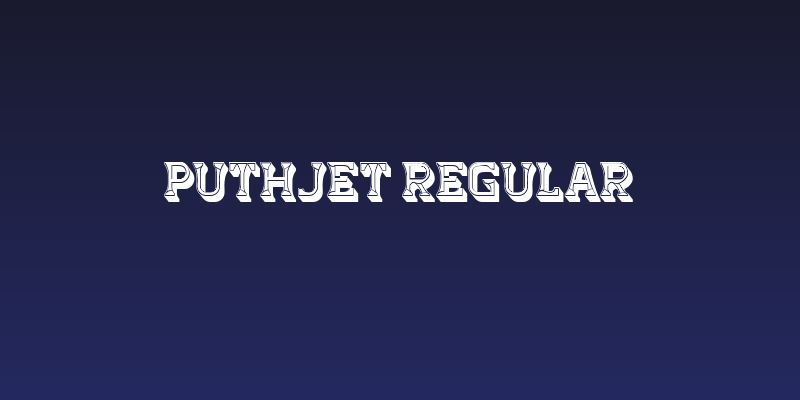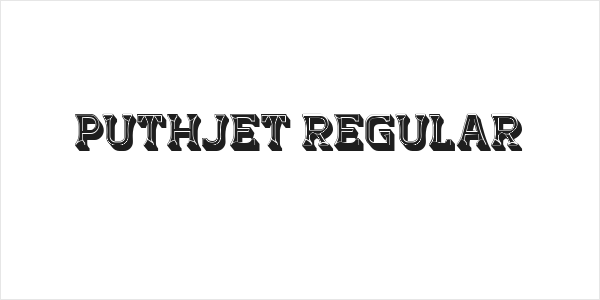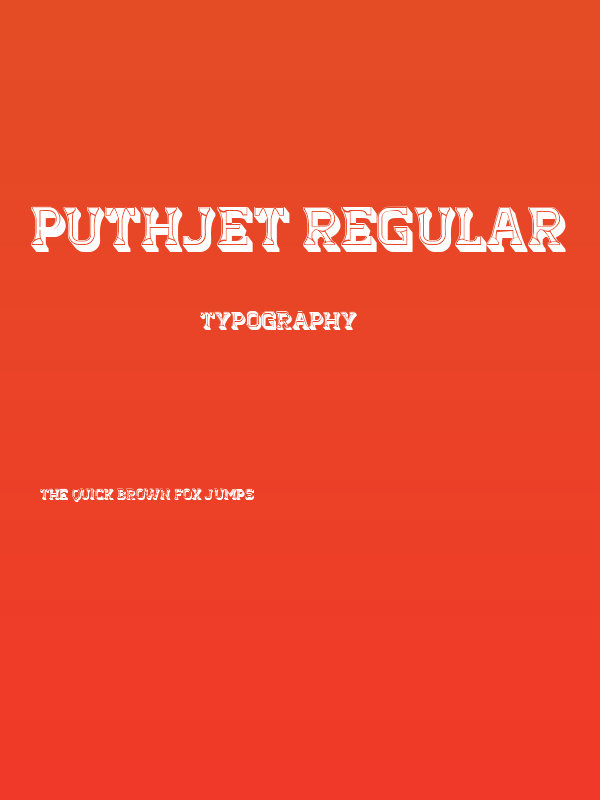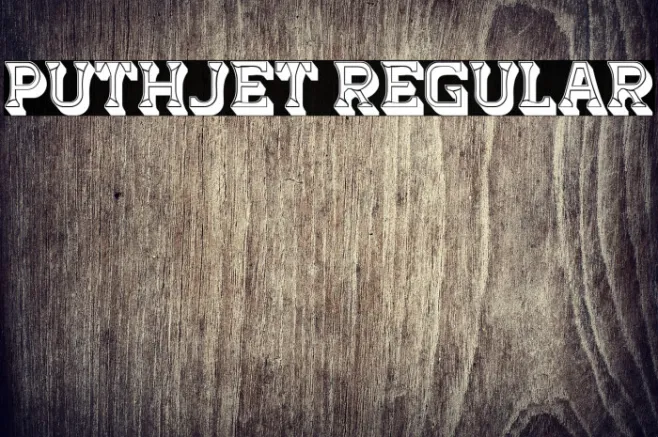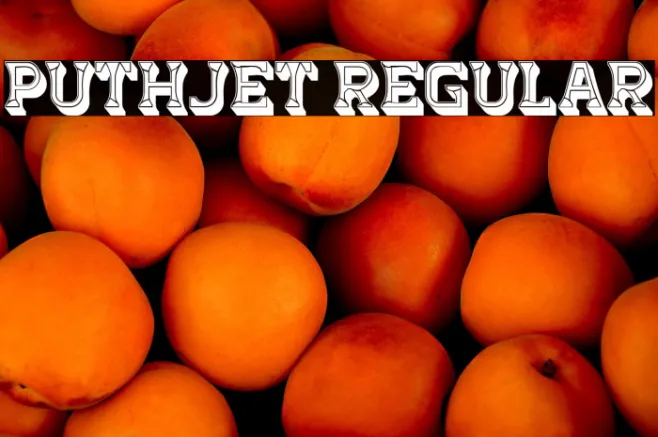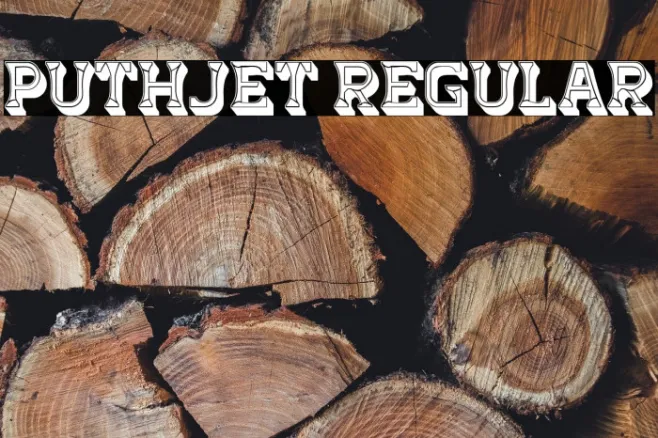
Puthjet Regular Font
Puthjet Regular Description
This font features a bold, decorative style with a three-dimensional effect that gives it a striking appearance. Each character is outlined with a thick black shadow, creating a sense of depth and dimension. The letters are uppercase, with sharp angles and geometric shapes that contribute to its bold and impactful look. The font's design is reminiscent of vintage signage or retro poster art, making it ideal for projects that require a strong visual statement. The spacing between characters is relatively tight, enhancing the cohesive and compact feel of the text. The high contrast between the thick outlines and the inner white space adds to its dramatic and eye-catching nature.
| Proposed Projects | Ideal for retro-themed posters, signage, branding, and headlines that need a strong visual impact. |